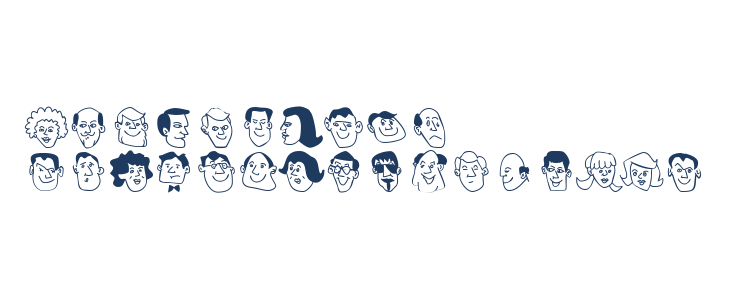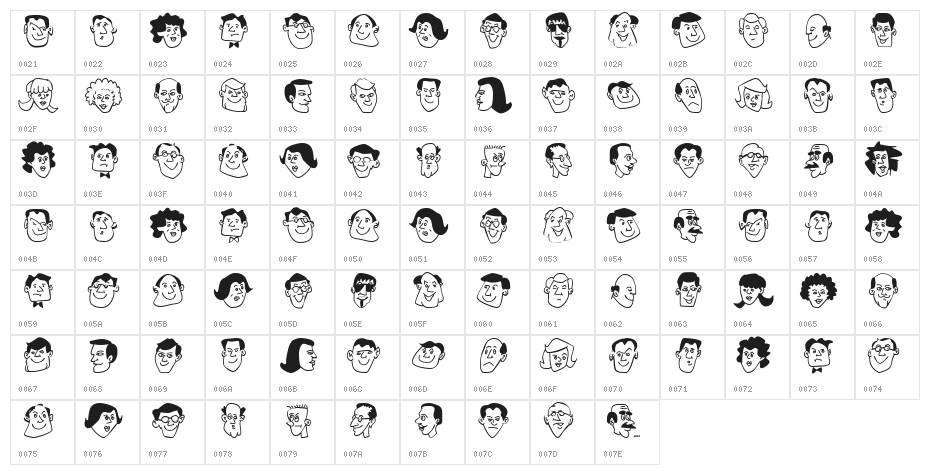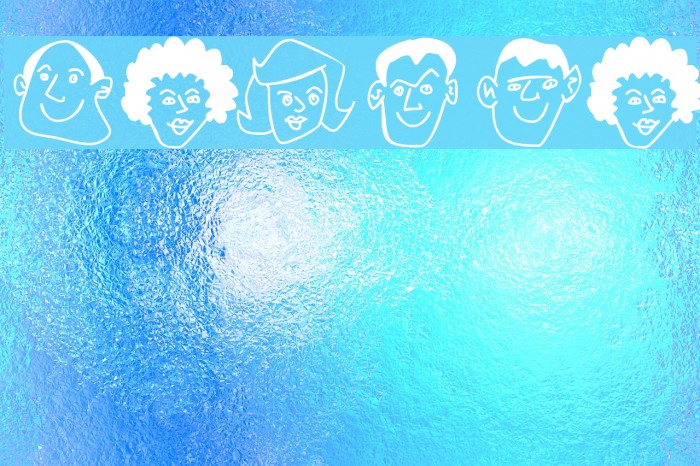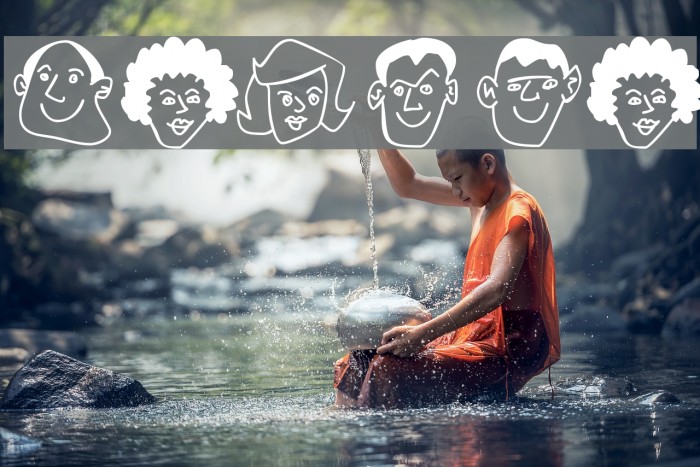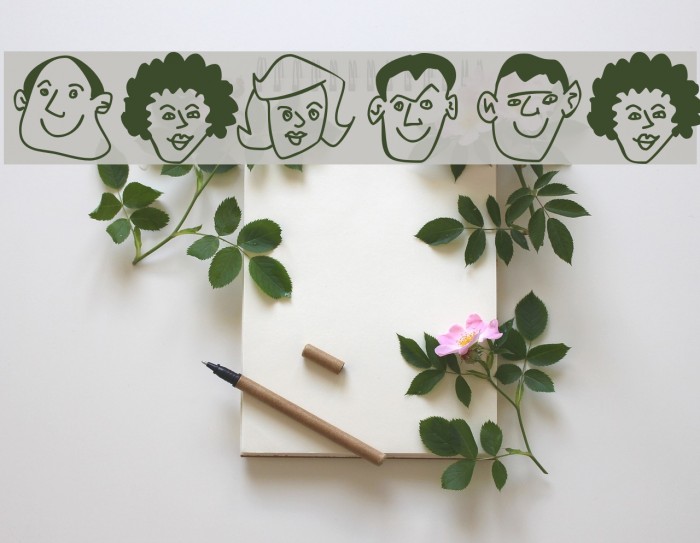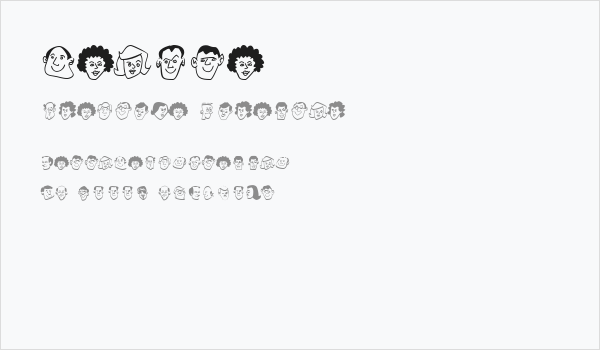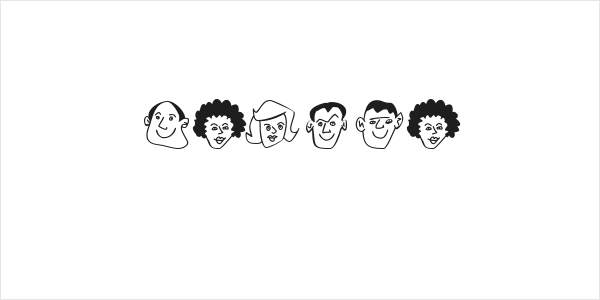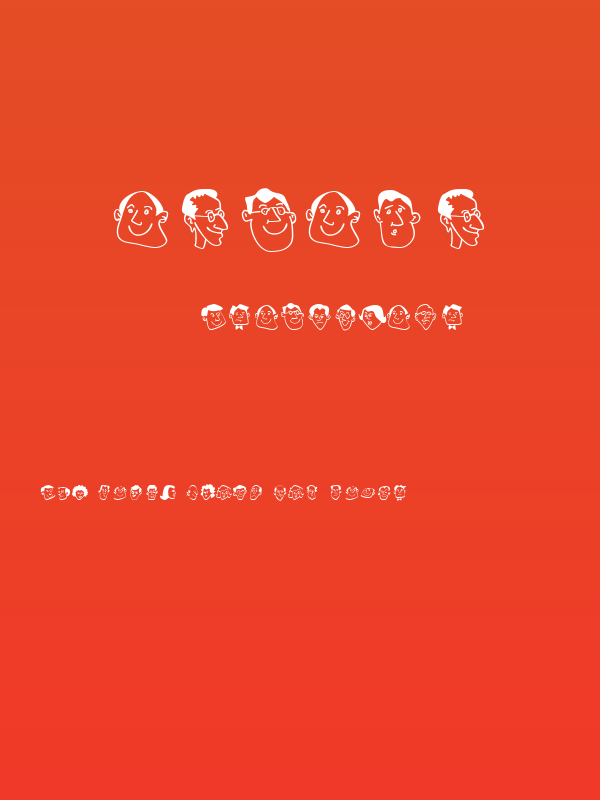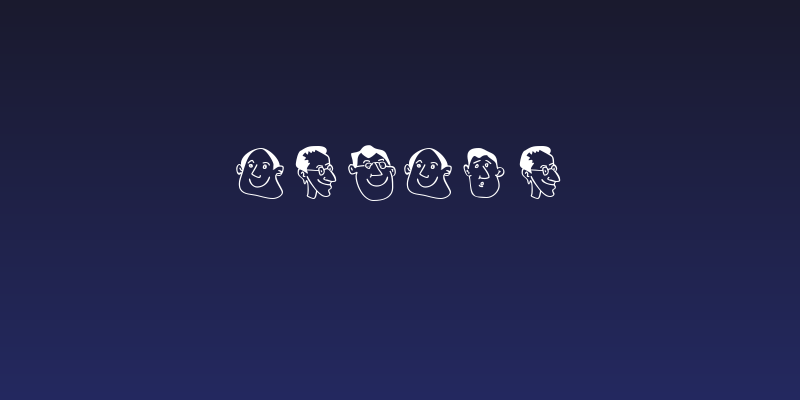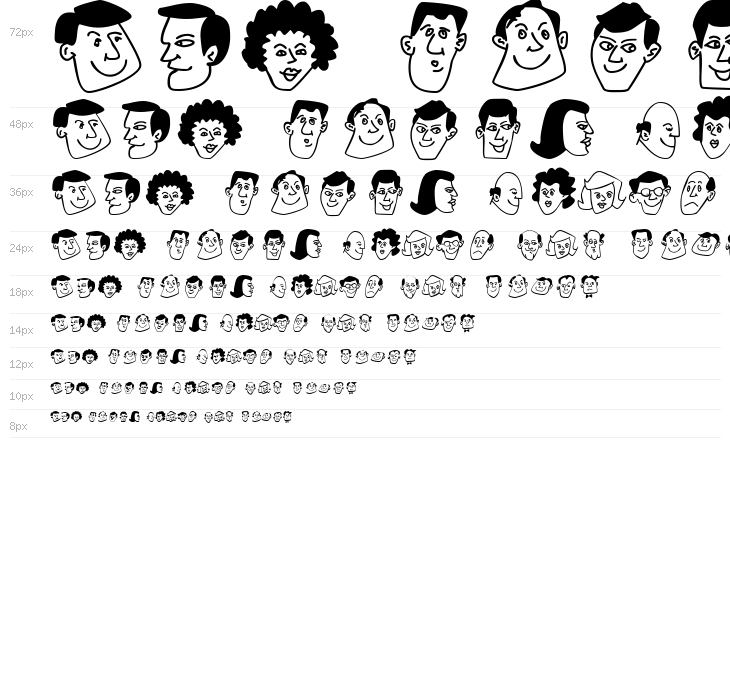
People Font
People Description
A playful, hand-drawn decorative font composed of unique cartoon-style faces for each character, featuring varied expressions and hairstyles, with thick, uneven linework and a whimsical, informal appearance.
| Overall Style | Playful, Whimsical, Cartoonish, Decorative |
| Use Case | Logos, Posters, Headlines, Invitations |
| Proposed Projects | ChildrenΓ’β¬β’s books, comic strips, party invitations, playful branding, posters, educational materials. |